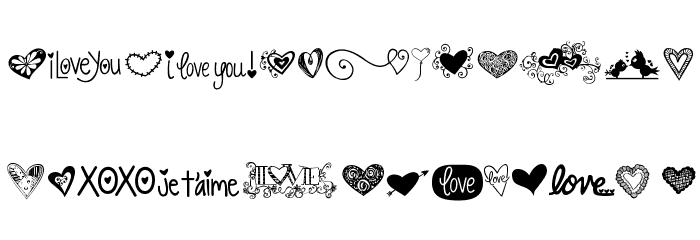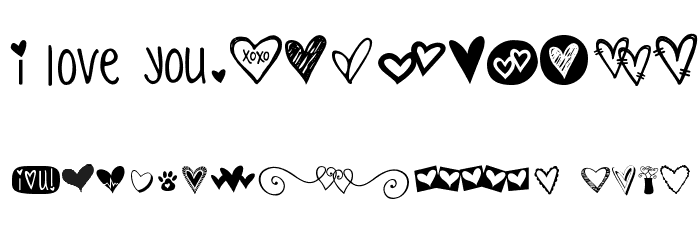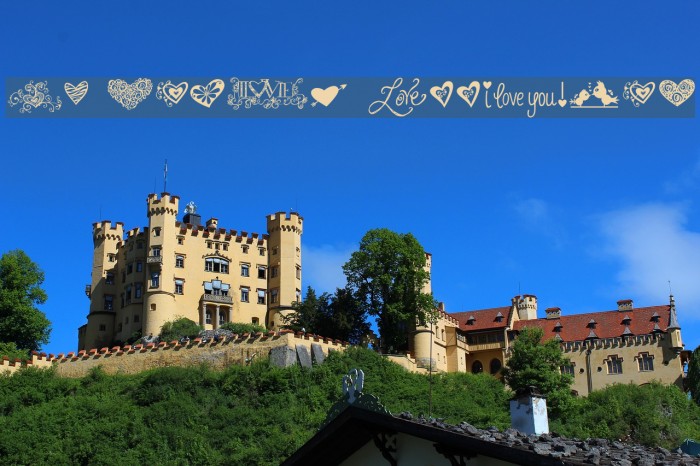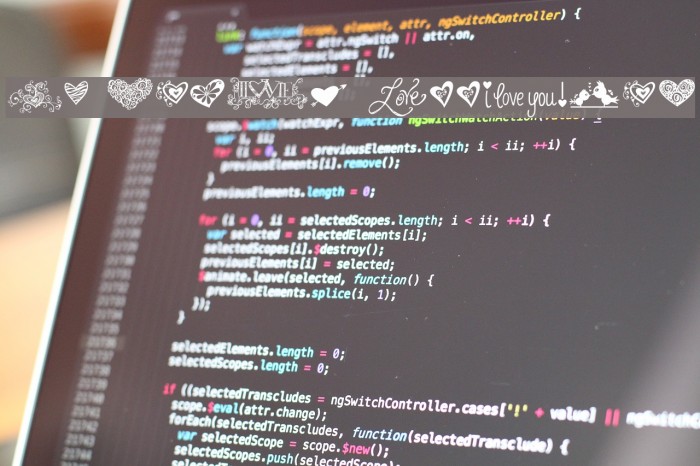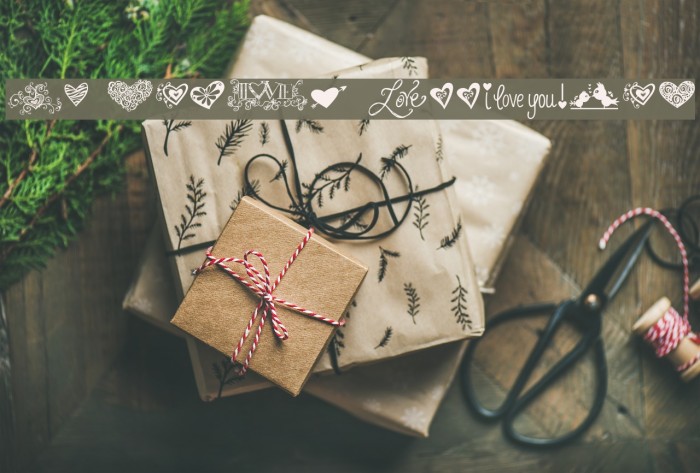
KG Heart Doodles Font
This font is a playful and decorative collection of heart-themed doodles and romantic expressions. It features a variety of whimsical designs including hearts, love notes, and floral elements. The style is eclectic, with a mix of hand-drawn and script-like elements, creating a charming and informal appearance. Each character is unique, adding a personalized touch to any project. The font is ideal for creating a romantic or playful atmosphere, perfect for Valentine's Day cards, wedding invitations, or love-themed crafts. Its diverse range of symbols and words like 'love', 'i love you', and 'xoxo' make it versatile for various creative applications.
A playful, heart-themed decorative font with romantic doodles and expressions.
- Proposed Projects: Ideal for Valentine's Day cards, wedding invitations, love-themed crafts, and playful designs.
- Use Case: Logos, Headlines, Decorative elements